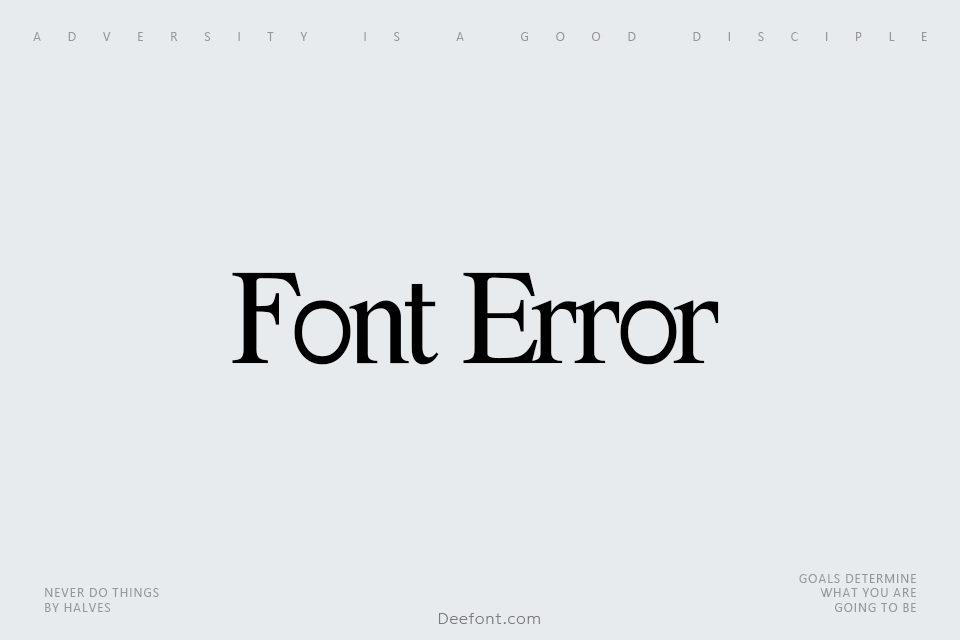
Font Error Font
Font Error is a distinctive display typeface created by Harold’s Fonts. This versatile font offers a unique visual character that brings personality and style to various design projects. The font delivers excellent readability and works well for headlines, titles, and decorative applications where distinctive typography makes an impact. With its bold presence and creative form, Font Error stands out as an ideal choice for designers seeking to add character and visual interest to their work.